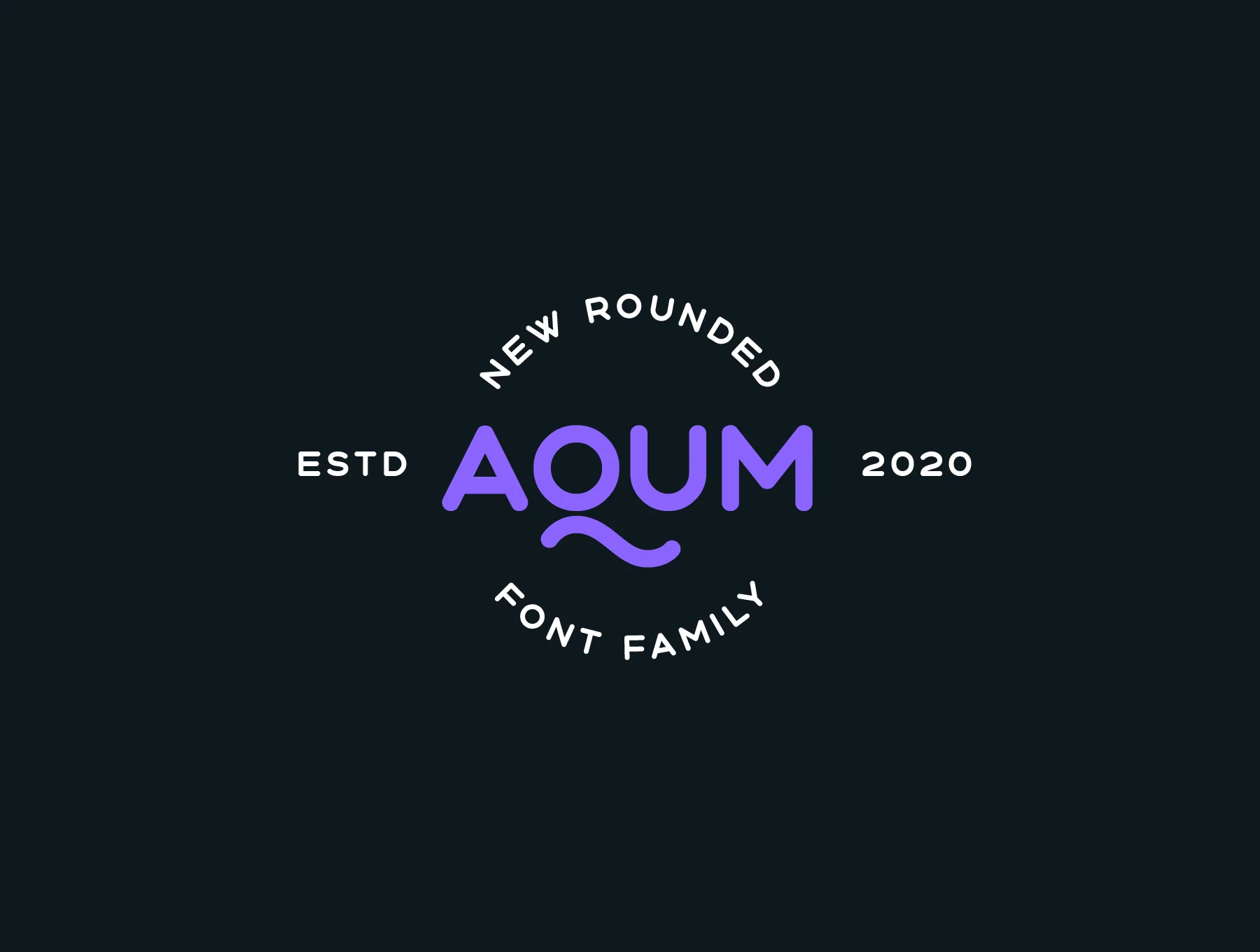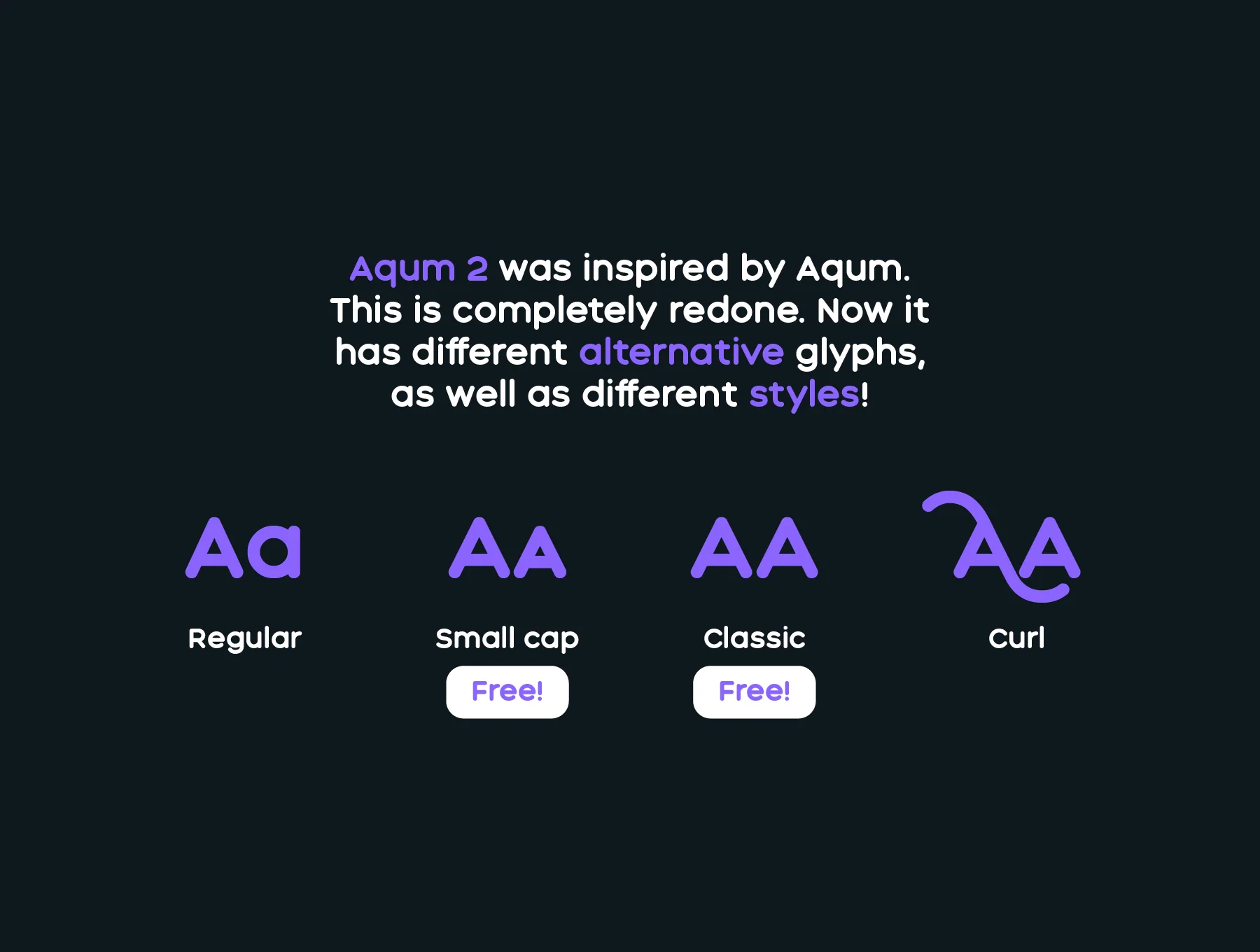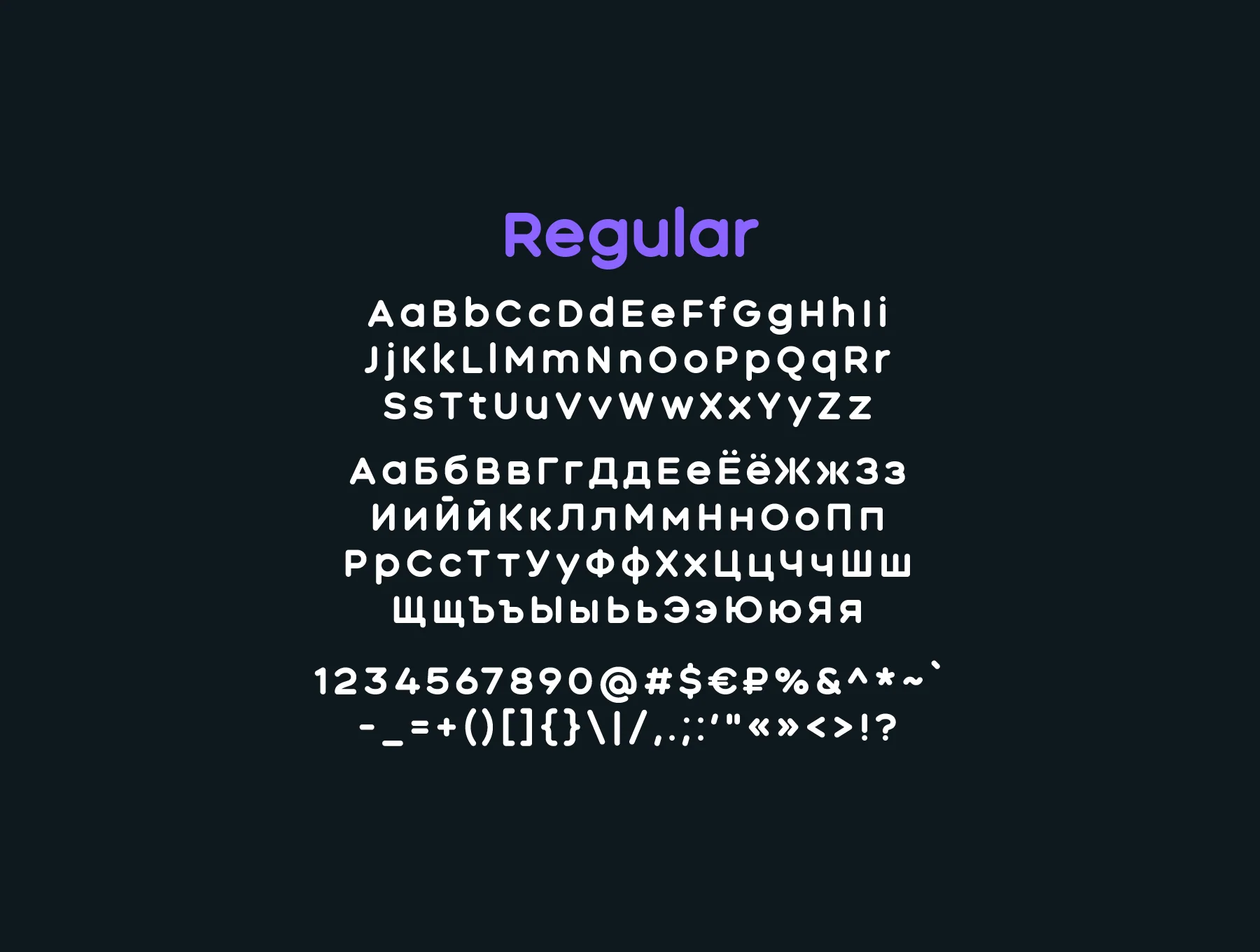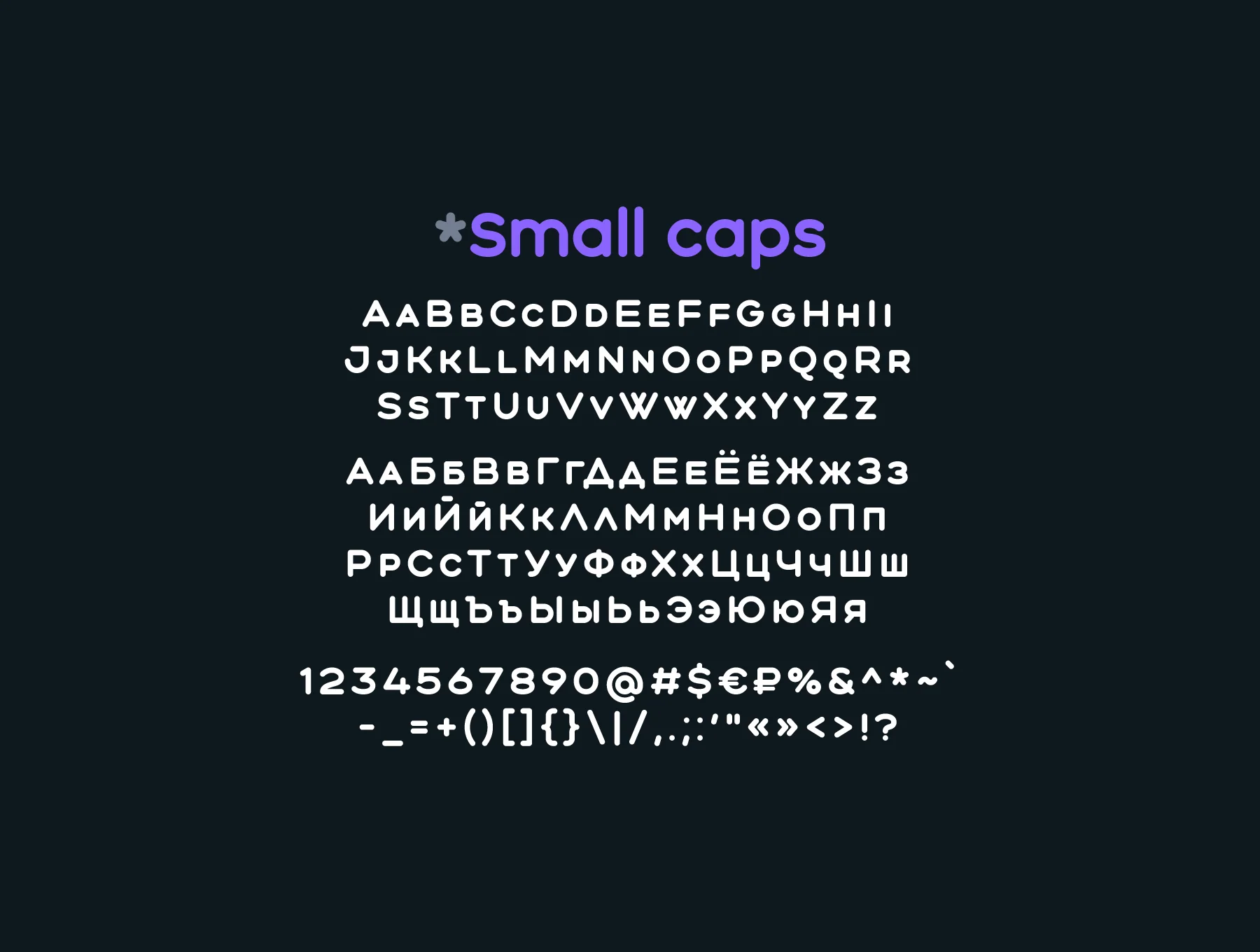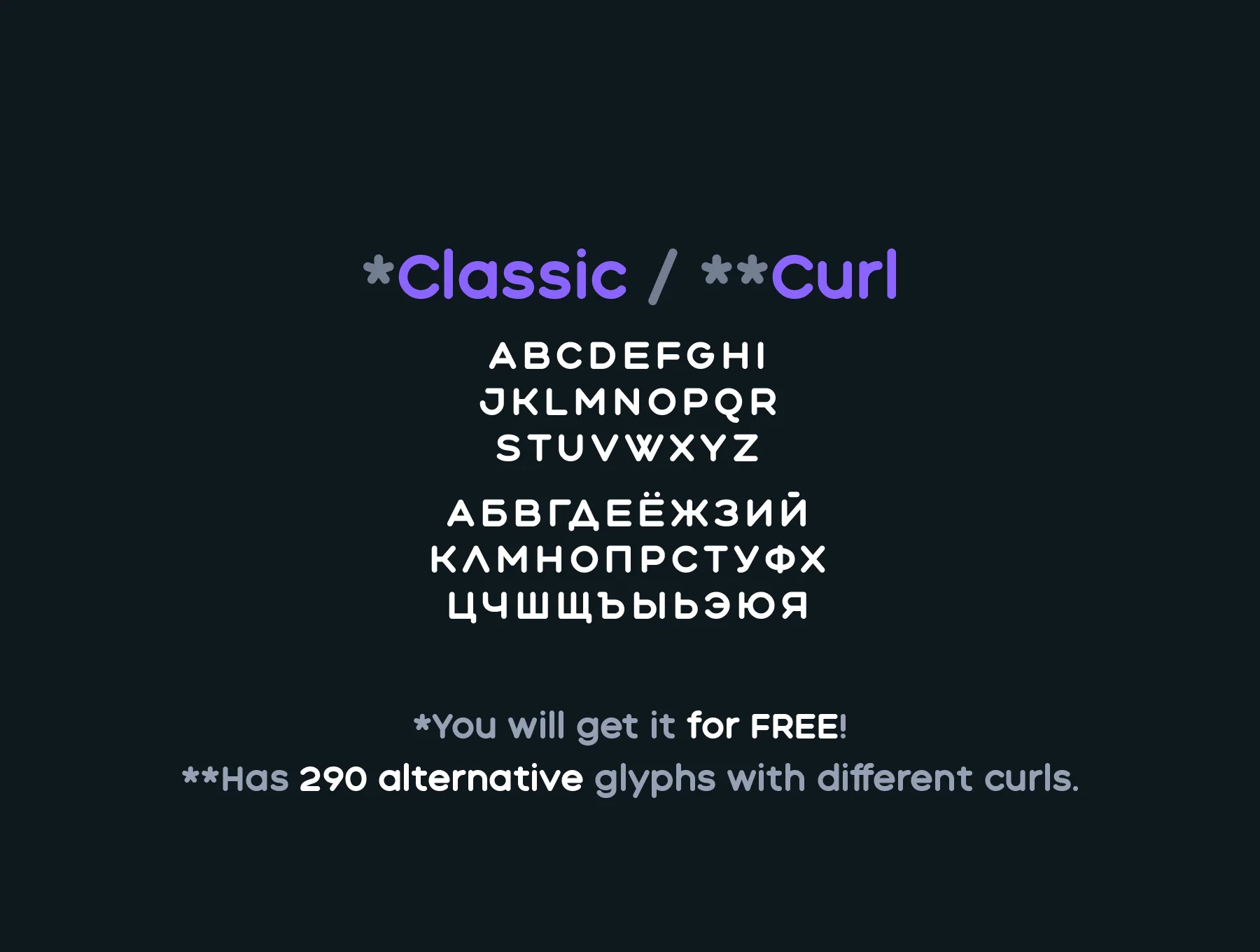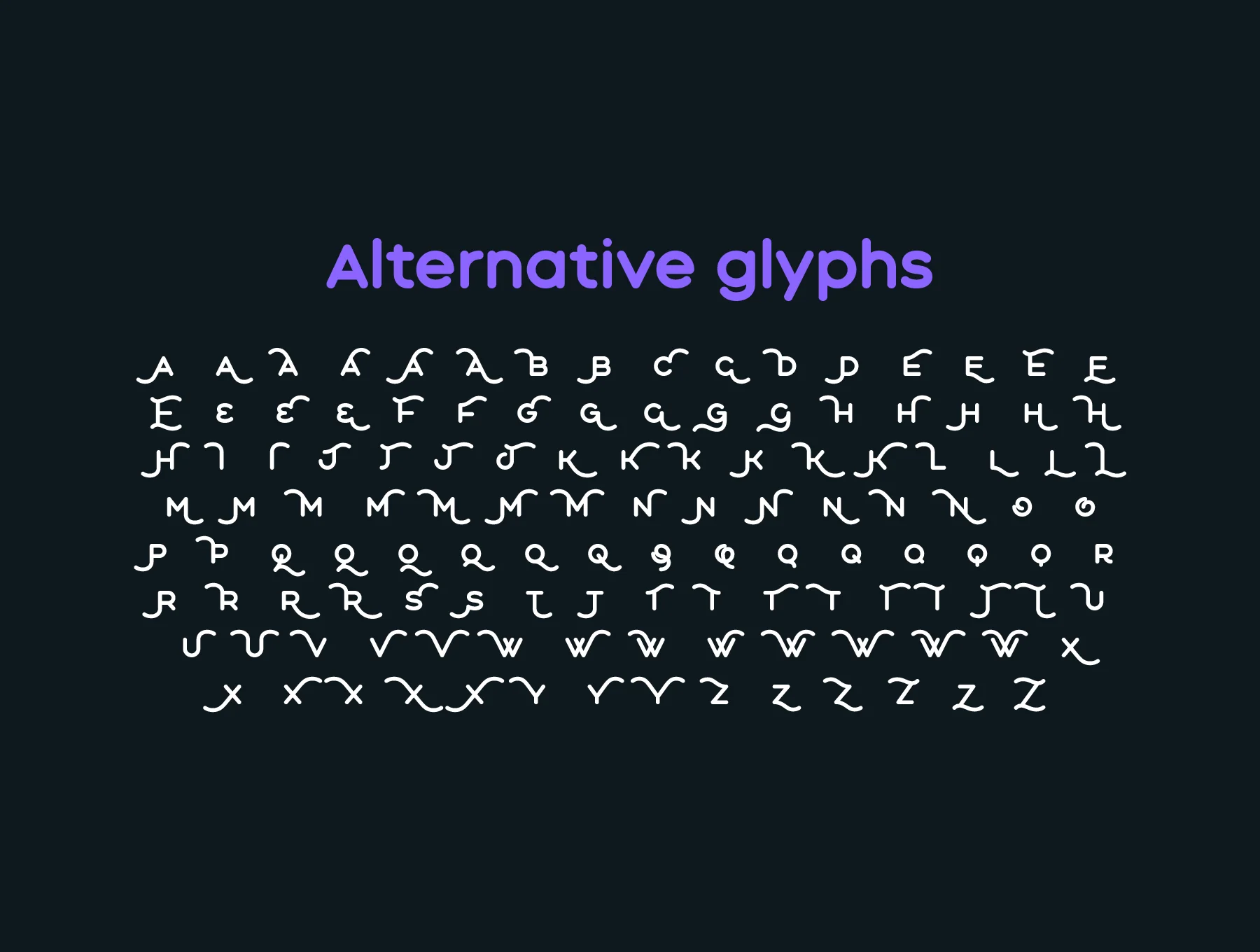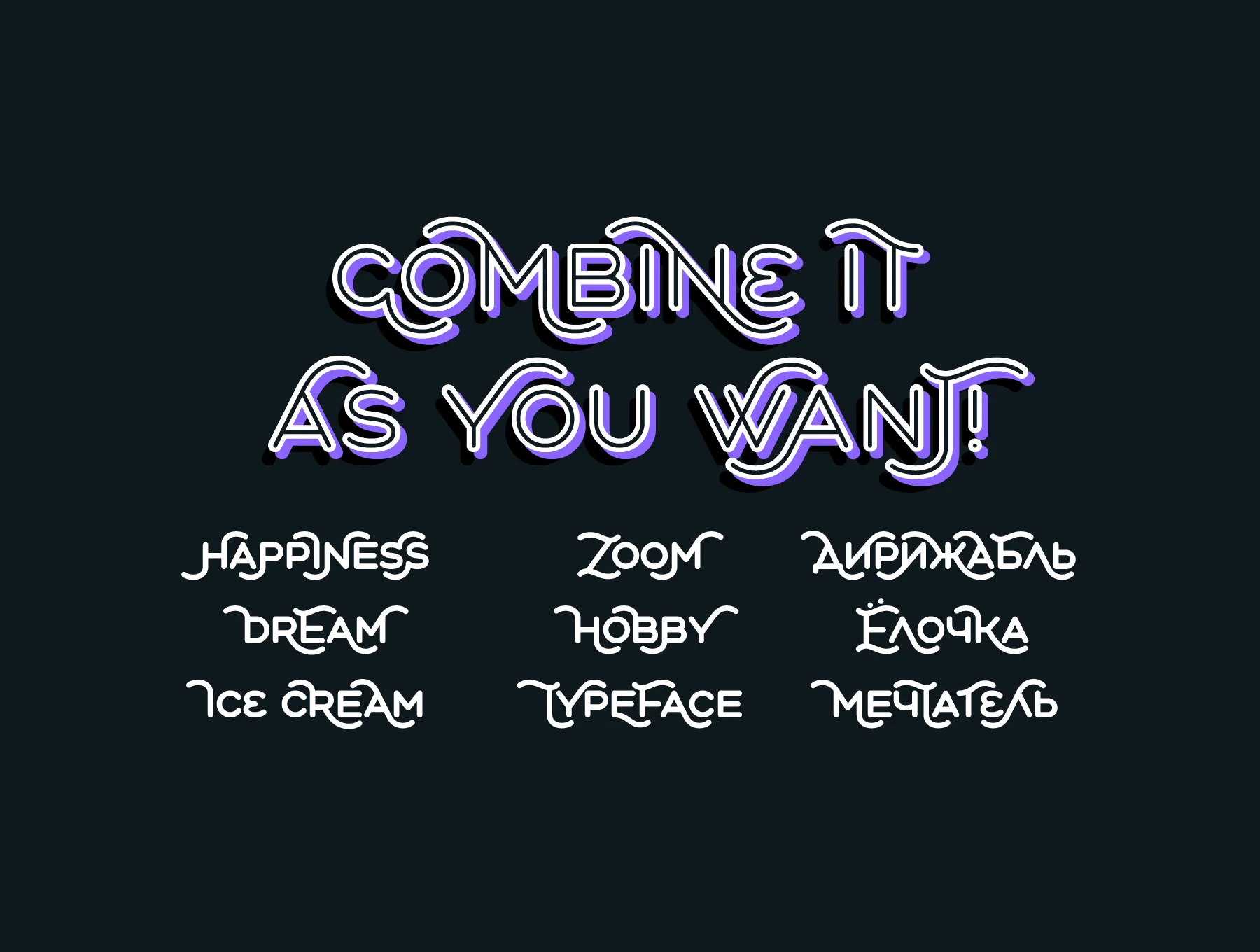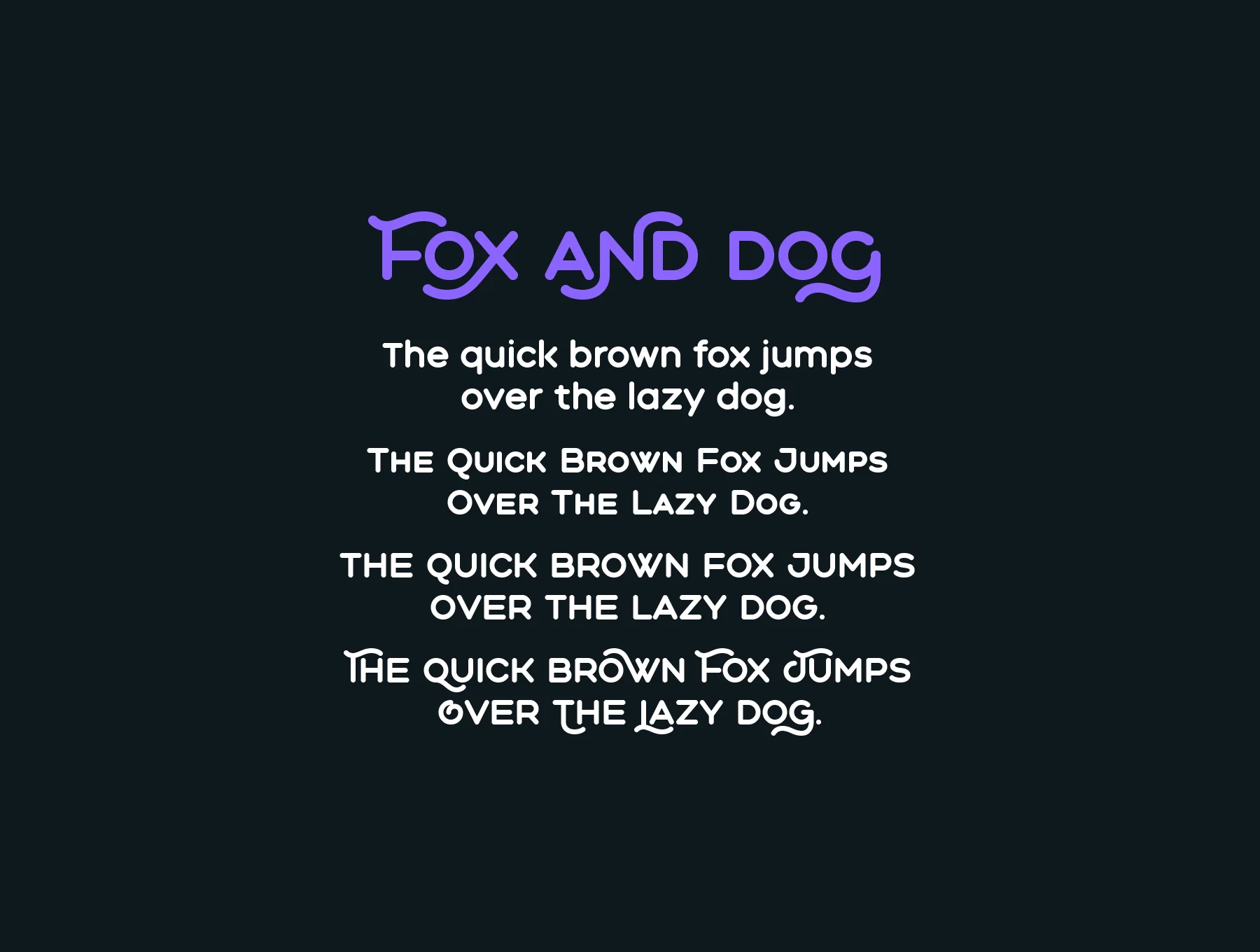
Aqum 2 - rounded font family
Curved typeface family for your upcoming project.
Aqum 2 - rounded font family
Works with over 50 languages
Latin and Cyrillic alphabets
Curved-edge style
Geometry-inspired form
Aqum 2 is a fresh rounded typeface family featuring four styles, including one free option for both personal and commercial projects. Ideal for logos, headlines, print designs, and more.